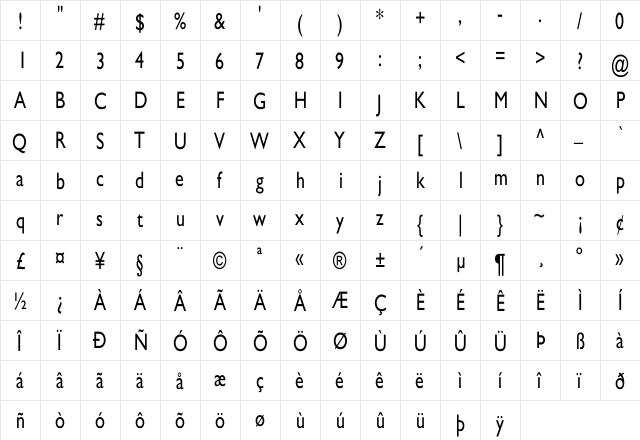
GillSans Cn Regular
GillSans Cn takes a measured approach to typography — its balanced proportions and neutral character make it a reliable workhorse for both digital and print work.